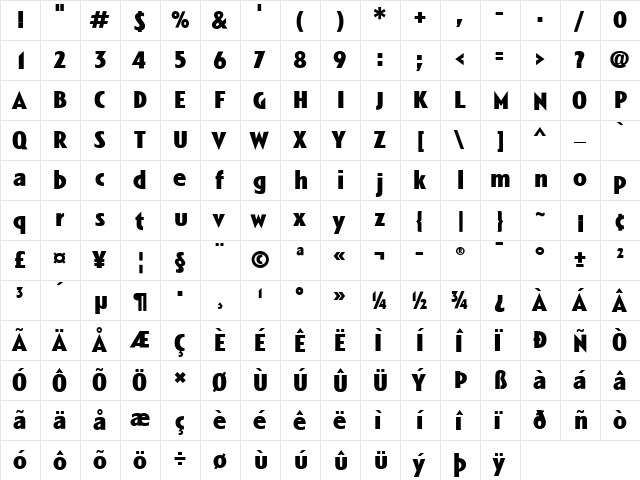
LTSpitz Book Bold
Design Context for LTSpitz Book Typeface
LTSpitz Book is a composed and adaptable typeface that performs quietly and consistently across a wide range of design contexts. The heavy weight commands attention and anchors typographic hierarchies.